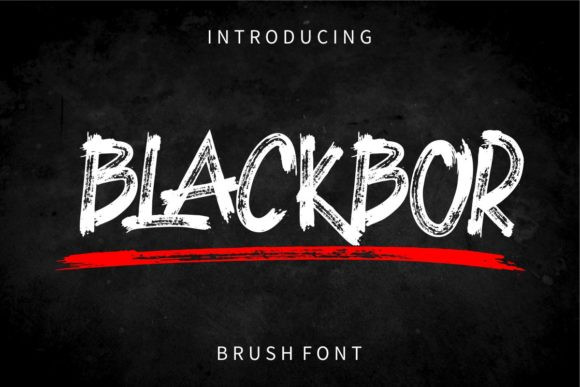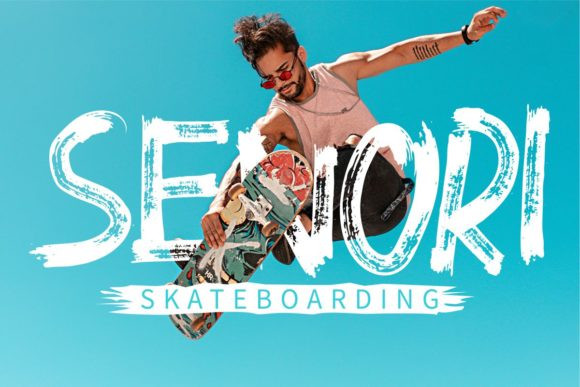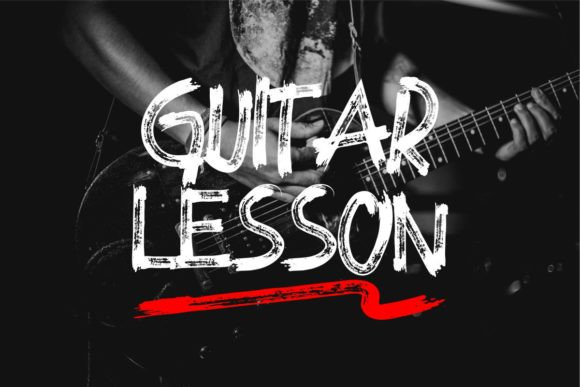
Blackbor Font
Blackbor is a bold and chunky lettered display font, created with the help of a brush pen. Its relaxed style makes this font incredibly versatile, fitting a wide range of designs. So add it to your most favorite ideas and notice how it makes them stand out!